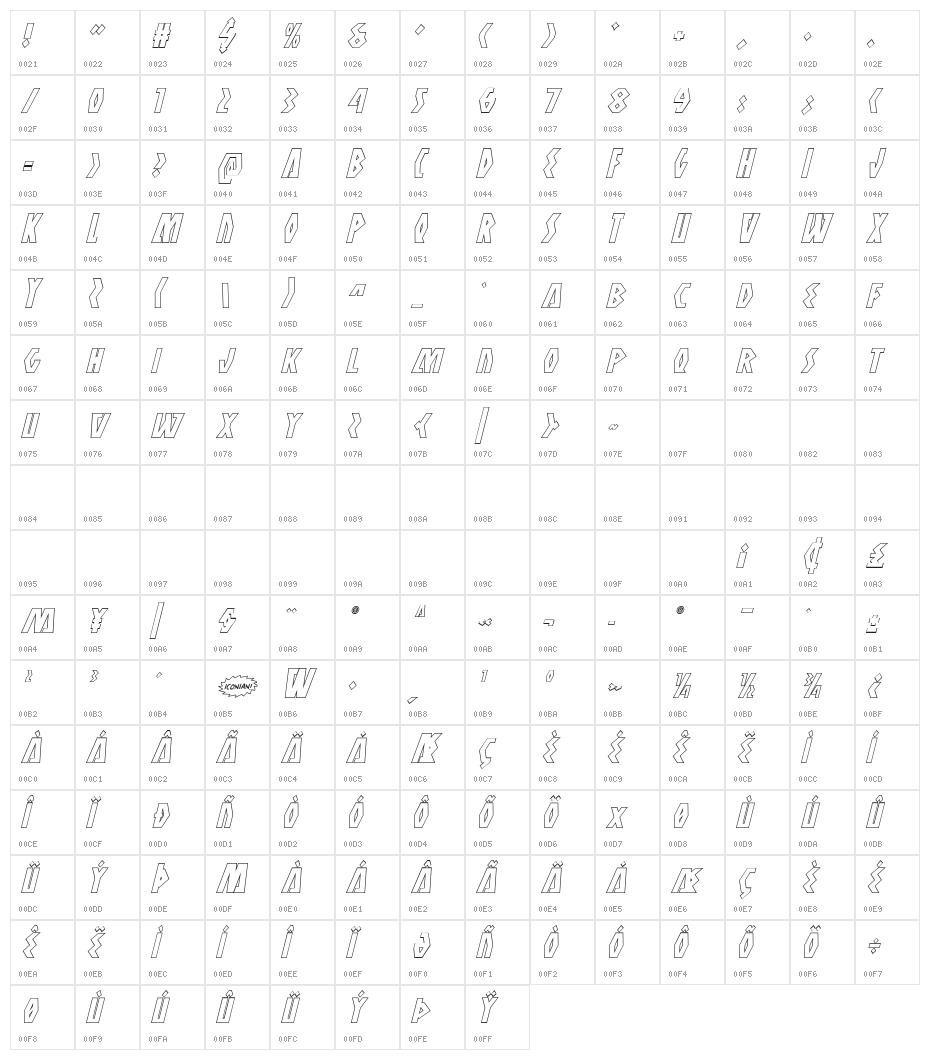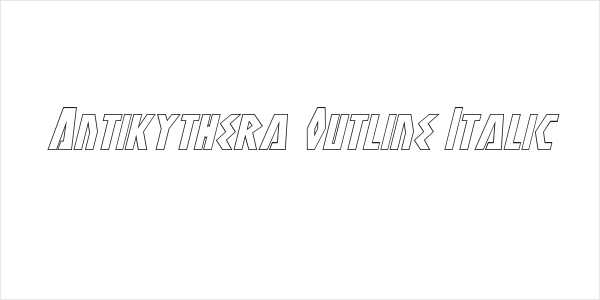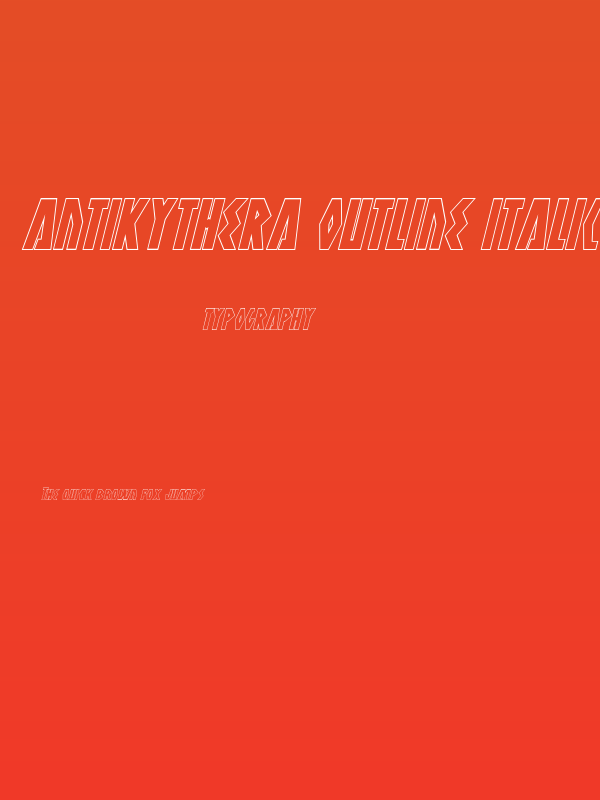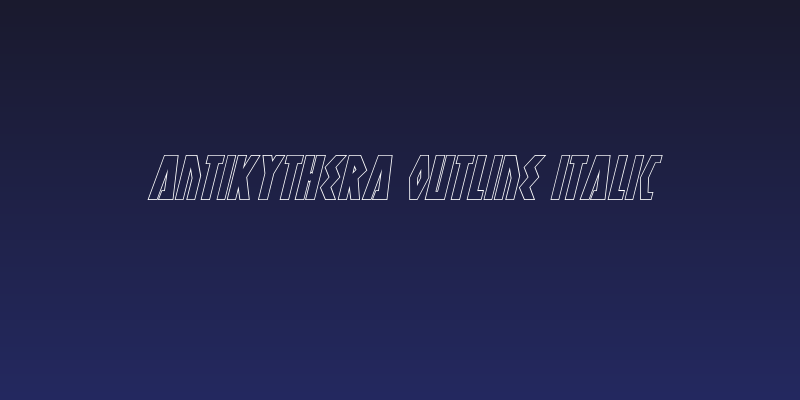
Antikythera Outline Italic Font
Antikythera Outline Italic Description
This font features a bold, geometric outline style with a distinct italic slant, giving it a dynamic and futuristic appearance. The characters are constructed with sharp angles and clean lines, creating a sense of movement and energy. The uppercase and lowercase letters maintain a consistent design, while the numbers and special characters complement the overall aesthetic. The outline nature of the font adds a layer of complexity, making it suitable for eye-catching designs. Its unique style is ideal for projects that require a modern and edgy look.